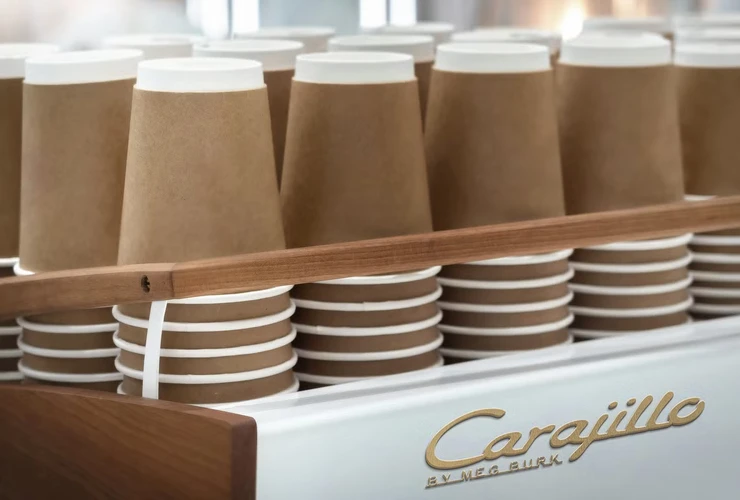
Carajillo Font Collection: A Blend of Vintage and Modern Typography
Carajillo Font Collection is a meticulously designed font pack that draws inspiration from the classic, vintage emblems found on espresso machines and iconic brands. Created by designer Meg Burk, this collection offers a range of styles from elegant scripts to bold sans serifs, perfect for anyone looking to infuse a blend of retro charm and contemporary flair into their projects.
What’s Inside the Carajillo Font Collection?
The Carajillo Font Collection features three main fonts:
Carajillo – Vintage Script: The star of the pack, Carajillo is a beautifully crafted script that echoes the vintage logos often seen in classic cafés and high-end espresso machines. Its flowing curves and structured lines make it a standout choice for branding projects.
Cappuccino – Sans Serif (5 Variations): Cappuccino is a versatile sans serif that comes in five distinct variations, each offering its unique twist. Whether you need something clean and minimalistic or more rustic and textured, Cappuccino provides endless creative possibilities.
Cowboy – Hand Sans: This hand-drawn sans serif adds a playful, approachable vibe to the collection, perfect for quirky menus, signage, and other creative uses.
Why Choose Carajillo Font Collection?
This font collection is not just for coffee-related designs, though it was inspired by the intricate nameplates on espresso machines. It’s a versatile toolkit for anyone working on branding, editorial, or menu design projects that require a nod to vintage aesthetics with a modern twist. The combination of structured sans serifs and flowing scripts makes this collection suitable for a broad range of creative applications.
Key Features:
Varied Font Styles: Includes script, sans serif, and hand-drawn fonts with multiple variations.
Perfect for Branding: Ideal for businesses looking to evoke a warm, nostalgic atmosphere, from coffee shops to boutique brands.
Where to Use Carajillo?
Carajillo’s flexibility shines through in various applications:
Menu Boards: The structured sans serif options are perfect for creating eye-catching menus that feel both inviting and polished.
Branding Projects: The combination of a bold script and versatile sans serif makes it an excellent choice for logos and branding.
Event Signage: Whether it’s for a wedding, a pop-up event, or a café opening, Carajillo’s vintage feel will leave a lasting impression.
For those seeking a unique blend of nostalgia and modernity in their design work, Carajillo Font Collection delivers with style, variety, and creativity.